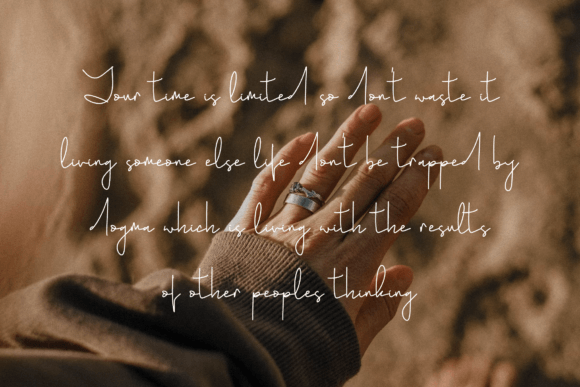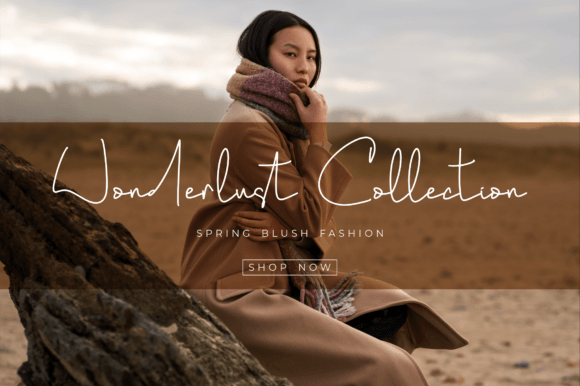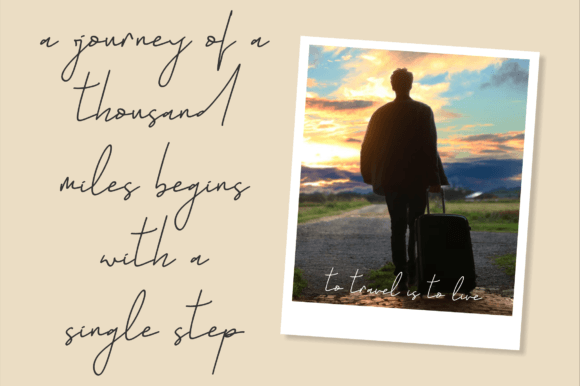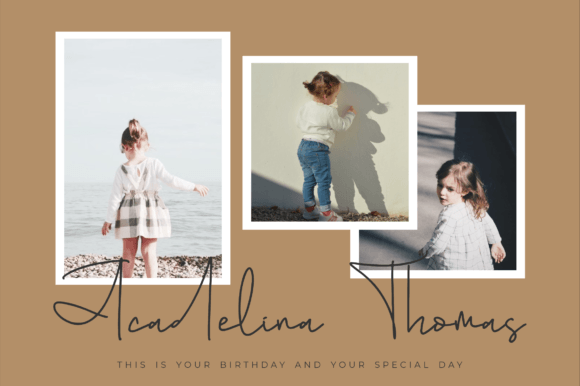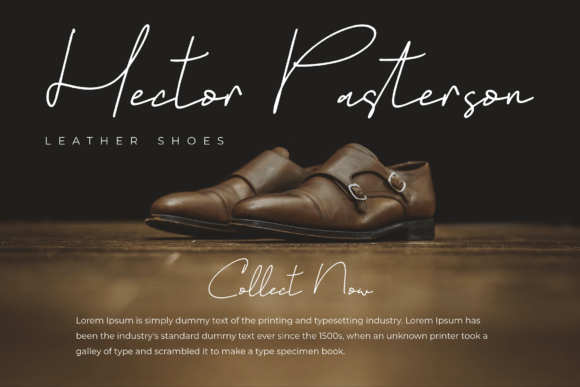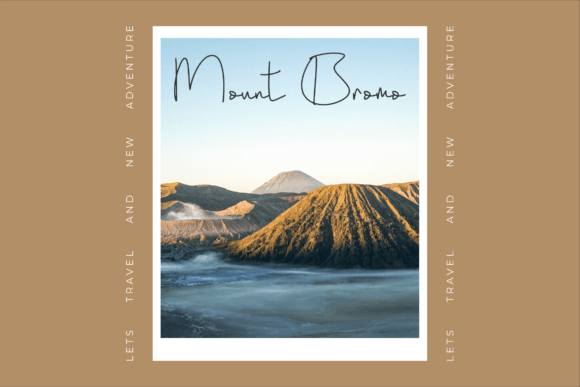
Introducing Blustiland Font: Elevate Your Designs with a Touch of Elegance
In the world of design, fonts play a crucial role in conveying the message and aesthetic of a project. Whether you’re a graphic designer, a crafty DIY enthusiast, or a business owner looking to brand your products, finding the right font can make all the difference. This is where Blustiland Font comes into play – a beautiful, handwritten monoline font that can add a touch of elegance and sophistication to any project.
What is Blustiland Font?
Blustiland Font is a modern, handwritten monoline font designed to bring a sense of style and uniqueness to your designs. Its clean lines, smooth curves, and fluid connections make it perfect for a wide range of applications, from logos and branding projects to homeware designs, product packaging, and more.
Key Features of Blustiland Font
- Handwritten Monoline Style: Blustiland boasts a beautiful, handwritten monoline style that gives it a personal and approachable feel, making it ideal for designs that require a touch of warmth and personality.
- Versatility: This font is incredibly versatile and can be used for a multitude of projects including logos, branding projects, homeware designs, product packaging, mugs, quotes, posters, shopping bags, t-shirts, book covers, name cards, invitation cards, greeting cards, labels, photography, watermarks, and special events.
- Ease of Use: Blustiland Font is easy to use and works well in both digital and print formats, making it a great choice for designers and crafters who work across different mediums.
- Beautiful Script Taste: The font adds a beautiful script taste to any design, making it stand out and giving it a professional and polished look.
Why Choose Blustiland Font?
With so many fonts available, why should you choose Blustiland for your next project? Here are a few compelling reasons:
- Uniqueness: Blustiland offers a unique style that can help your designs stand out from the crowd. Its monoline handwritten aesthetic is both modern and timeless, ensuring your projects look fresh and relevant.
- Readability: Despite its elegant and cursive nature, Blustiland maintains a high level of readability, making it suitable for both headings and body text.
- Customization: The font comes with a range of customization possibilities, allowing you to adjust it according to your project’s needs. Whether you need to change the color, size, or add effects, Blustiland adapts beautifully.
Applications of Blustiland Font
The versatility of Blustiland Font means it can be used in a wide array of applications:
- Branding and Logos: Create a memorable brand identity with a logo that stands out.
- Product Packaging: Elevate your product’s packaging with a beautiful and distinctive font.
- Marketing Materials: Use Blustiland for brochures, flyers, and posters to add a touch of class.
- Merchandise: Perfect for designing t-shirts, mugs, and other merchandise that requires a stylish and eye-catching font.
- Digital Media: Enhance your website, social media posts, and email newsletters with elegant typography.
Tips for Using Blustiland Font Effectively
To get the most out of Blustiland Font, consider the following tips:
- Pair with Complementary Fonts: For maximum impact, pair Blustiland with complementary fonts that enhance its beauty without overpowering it.
- Experiment with Colors: Don’t be afraid to experiment with different colors. Blustiland works well in both bold and subtle color schemes.
- Consider the Context: Always consider the context in which your design will be used. Ensure the font size and style are appropriate for its intended use.
Blustiland Font is a versatile and elegant handwritten monoline font that can elevate any design project. Its unique style, readability, and adaptability make it a valuable asset for designers and crafters looking to add a touch of sophistication and personality to their work. Whether you’re working on a branding project, product packaging, or a personal craft project, Blustiland Font is sure to inspire and enhance your creations.